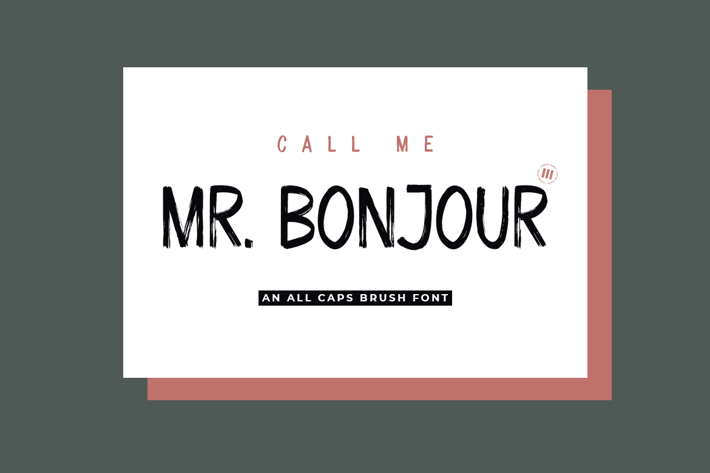
Mr. Bonjour - A Stylish Brush Font
Mr. Bonjour is an all-caps brush display font that is suitable for design projects; fashion display, adventure, playful theme, logo, branding, poster, quotes, display, beautiful stationary art, eye-catching social media posts, and any other designs.
Full All Caps Glyphs
Some Ligatures
Numbers, punctuations, and symbols